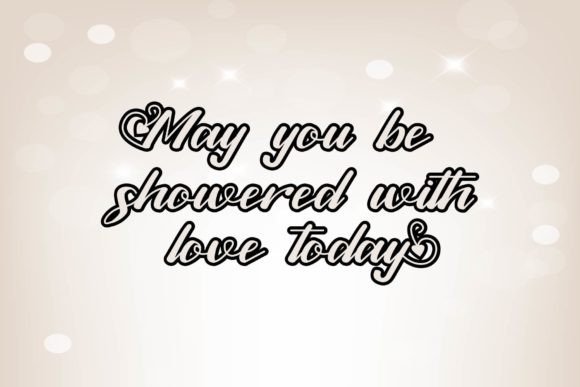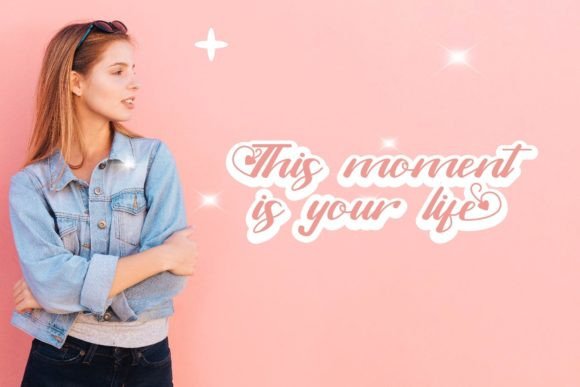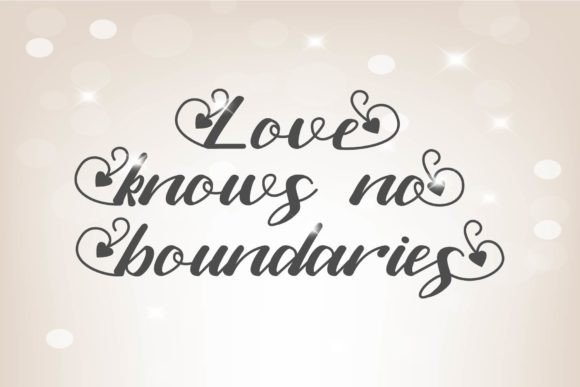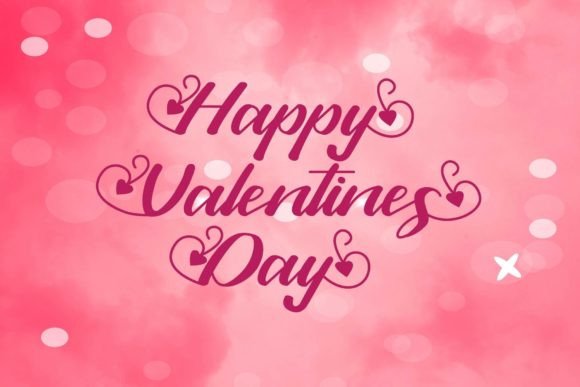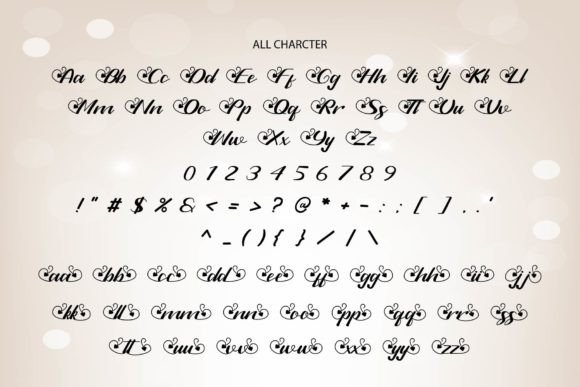
Introducing Beauty Font: Elevate Your Designs with Elegance
Are you a designer or crafter looking for a font that exudes elegance and sophistication? Look no further than Beauty Font, a stunning handwritten font that can elevate your designs to the next level. In this article, we’ll explore the features and benefits of Beauty Font, and how it can be used to create breathtaking designs for various applications.
What is Beauty Font?
Beauty Font is a stylish and incredibly elegant handwritten font that is perfect for adding a touch of sophistication to your designs. Its flowing lines and delicate curves make it an ideal choice for creating beautiful wedding invitations, thank you cards, quotes, greeting cards, logos, business cards, and more.
Key Features of Beauty Font
- PUA Encoded: Beauty Font is PUA (Private Use Area) encoded, which means you can access all of the glyphs and alternates with ease. This feature allows you to customize your designs and make them more unique.
- Handwritten Touch: The font has a beautiful handwritten touch that adds a personal and elegant feel to your designs.
- Versatile: Beauty Font can be used for a wide range of design applications, from wedding invitations to business cards, and everything in between.
Benefits of Using Beauty Font
So, why should you choose Beauty Font for your designs? Here are just a few benefits:
- Elegance: Beauty Font adds an instant touch of elegance to your designs, making them perfect for special occasions or high-end branding.
- Uniqueness: The font’s PUA encoding and handwritten touch ensure that your designs stand out from the crowd and are instantly recognizable.
Design Applications for Beauty Font
Beauty Font is an incredibly versatile font that can be used for a wide range of design applications. Here are a few ideas to get you started:
- Wedding Invitations: Create stunning wedding invitations that set the tone for the big day.
- Thank You Cards: Add a personal touch to your thank you cards and make them more special.
- Quotes: Use Beauty Font to create beautiful quote graphics that inspire and motivate.
- Greeting Cards: Create custom greeting cards for birthdays, holidays, and more.
- Logos: Use Beauty Font to create elegant and sophisticated logos for your business or brand.
- Business Cards: Add a touch of elegance to your business cards and make them more memorable.
Tips for Using Beauty Font
Here are a few tips for getting the most out of Beauty Font:
- Experiment with Colors: Try pairing Beauty Font with different colors to create unique and eye-catching designs.
- Play with Sizes: Experiment with different font sizes to create visual interest and hierarchy in your designs.
- Mix and Match: Try pairing Beauty Font with other fonts to create a unique and personalized look.